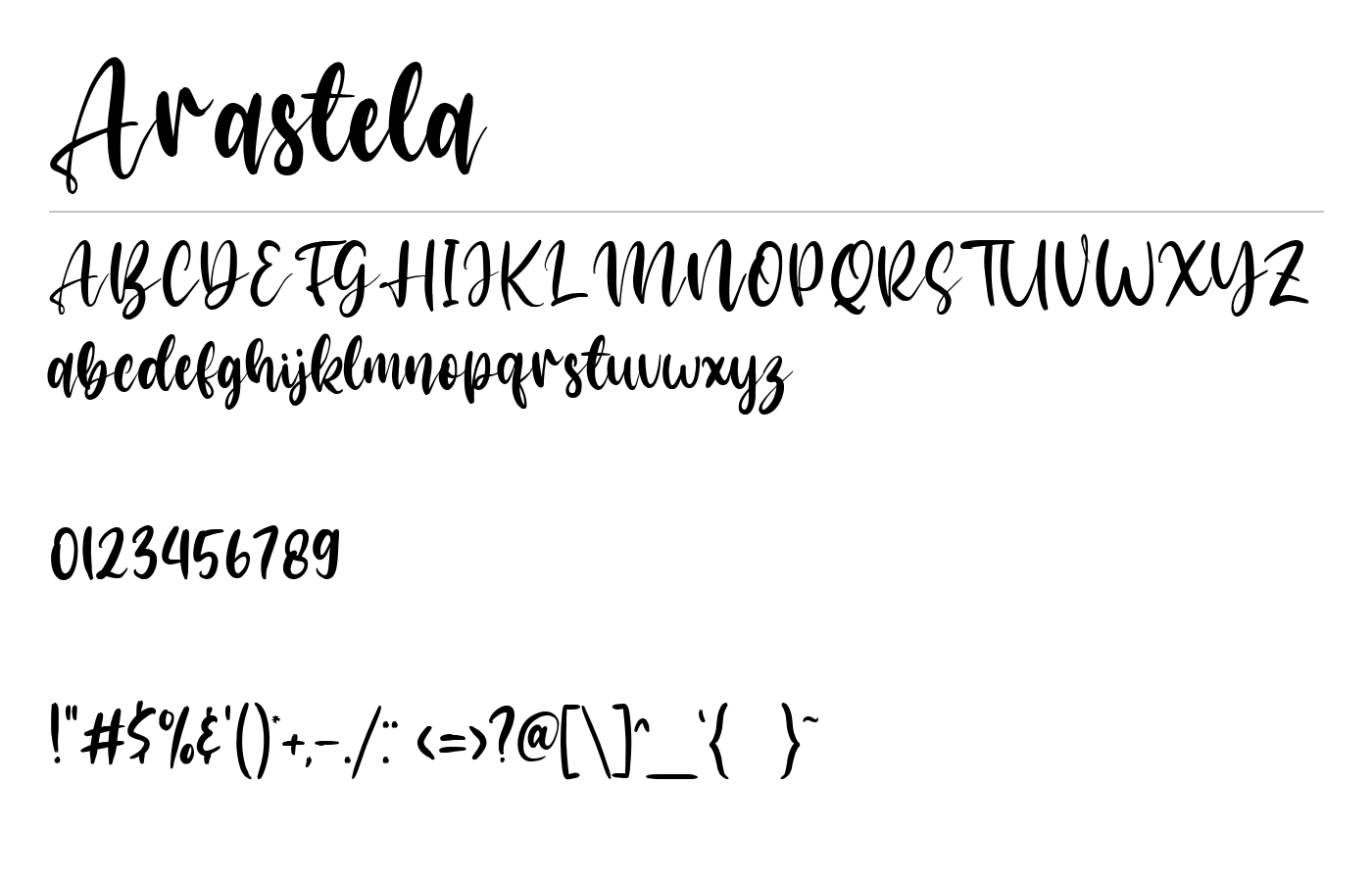
Arastela is a lively and elegant script font with a hand-painted feel, featuring smooth, rounded strokes and moderate contrast that give it a warm and approachable personality. Its flowing letterforms and playful curves make it ideal for creative branding, invitations, and lifestyle projects where a friendly yet stylish touch is desired. This font works beautifully in headlines and decorative text, bringing a personal, artistic flair to any design.
Arastela Font
About Arastela Font
| Font family | Arastela Font |
| Designer | Vztype ( Randi Ilhamsyah ) |